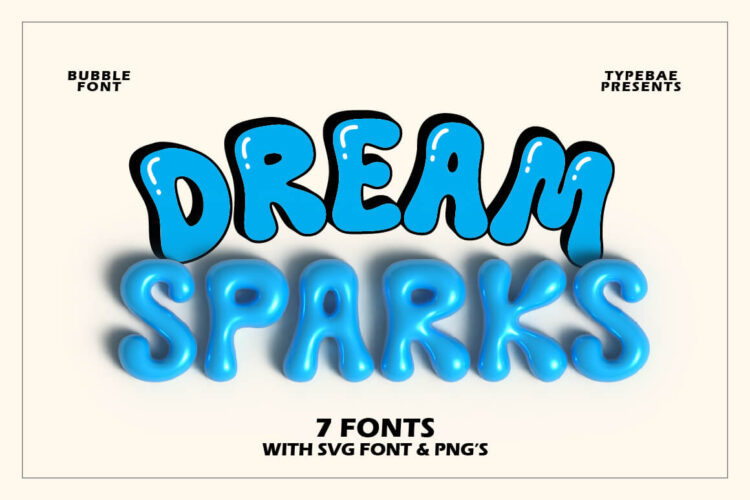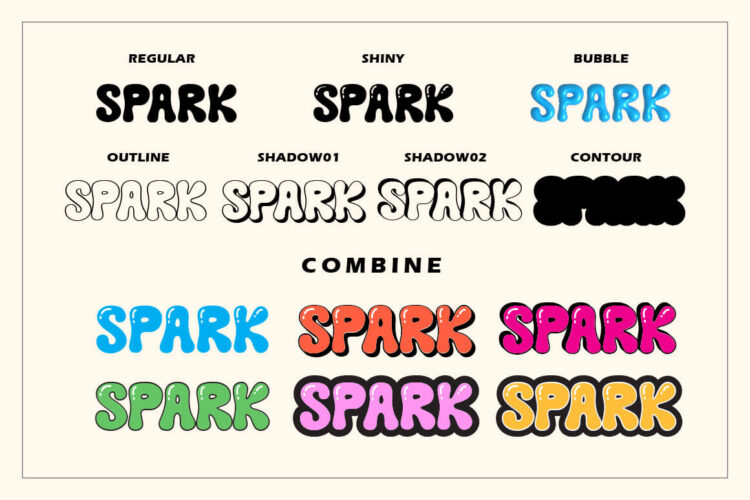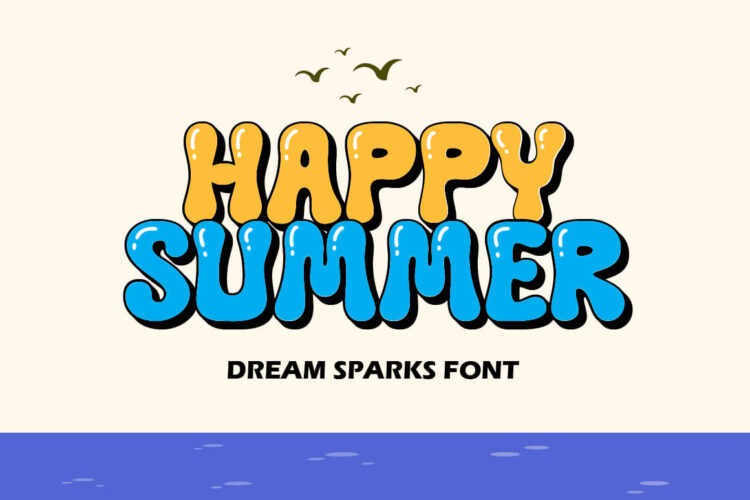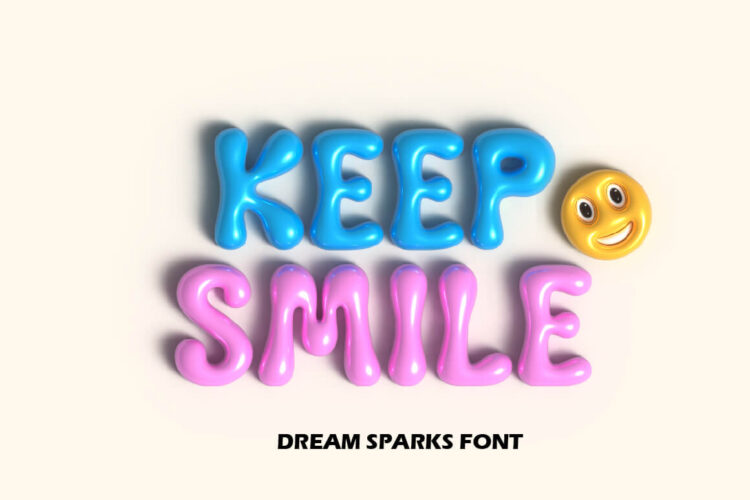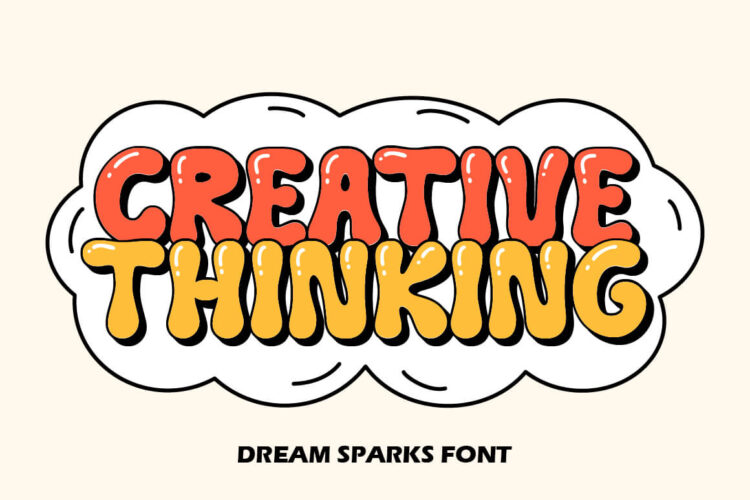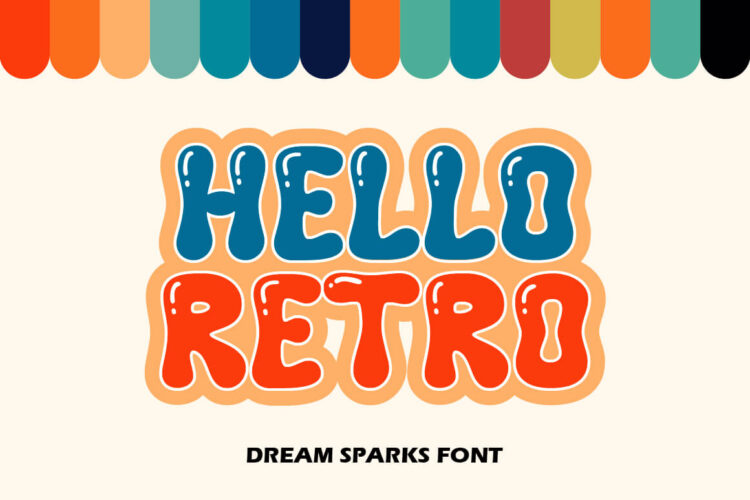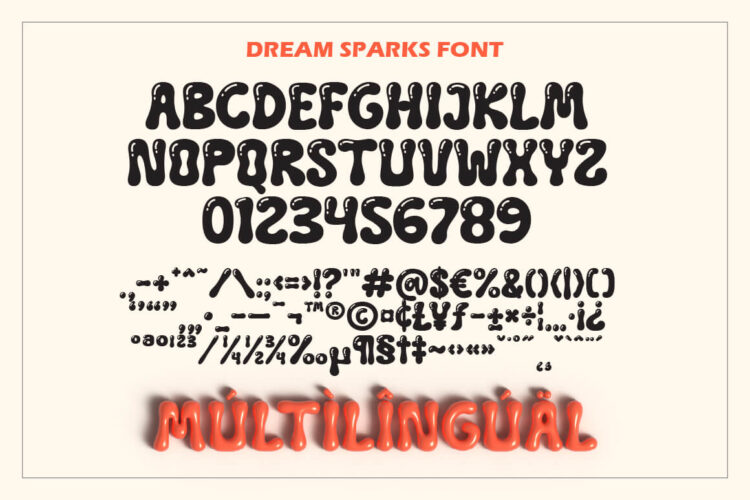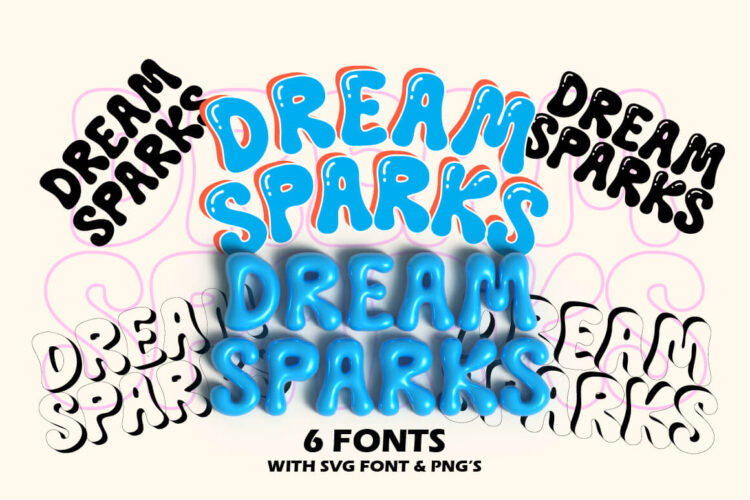
Dream Spark Font is a bubble font with a lively appearance that will fill your designs with cheerfulness! It’s great for covers, posters, spring designs, marketing materials, and anything that needs to stand out!
Feature: Alphabet, Numeral, Punctuation, PUA Encode, Multilingual